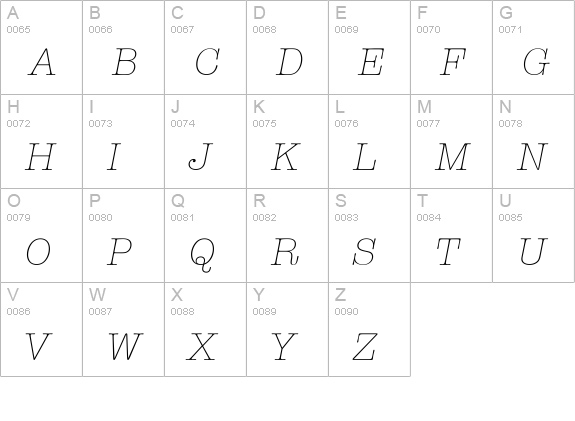
RomtypewriterLightItalic Font Details
RomtypewriterLightItalic font is a stylish and unique typeface that combines elements of a traditional typewriter font with a modern twist. Its sleek and elegant design makes it perfect for various design projects, from branding to editorial design. The light italic style adds a touch of sophistication and flair to any text. What makes RomtypewriterLightItalic font even more appealing is that it is available for free download at FontsMarket.com. This means you can easily access and use this versatile font for personal or commercial projects without any cost. Whether you're a designer looking for a fresh font to elevate your work or a creative individual wanting to add a special touch to your projects, RomtypewriterLightItalic font is the perfect choice. Download it today and start creating stunning designs with this beautiful typeface.